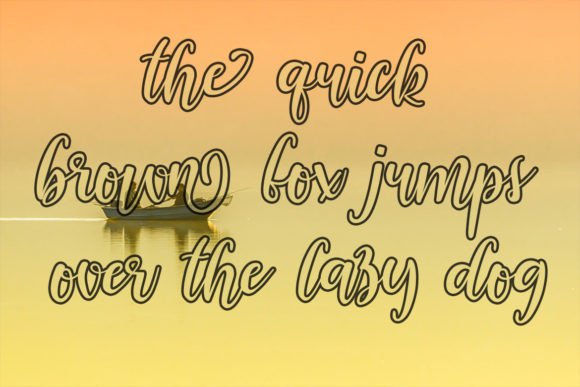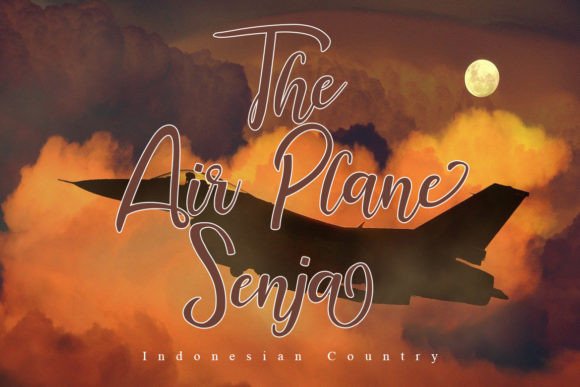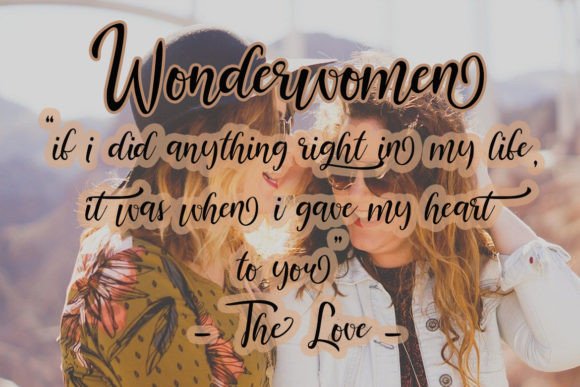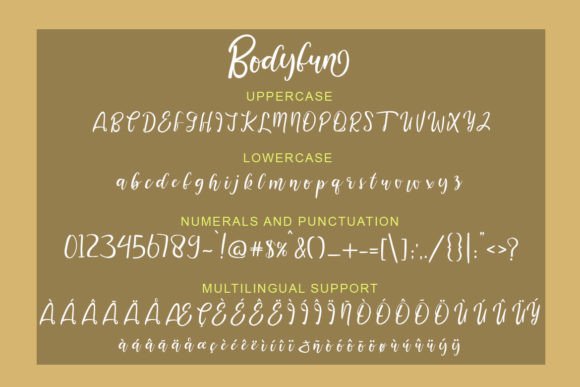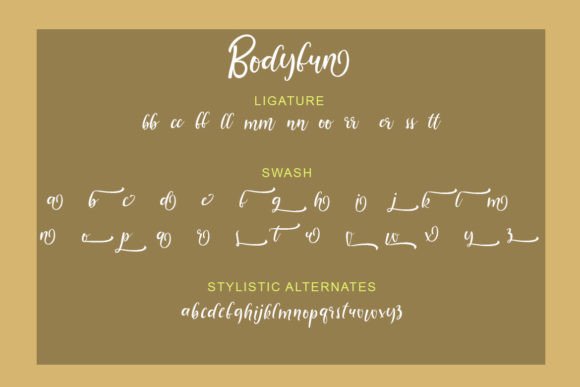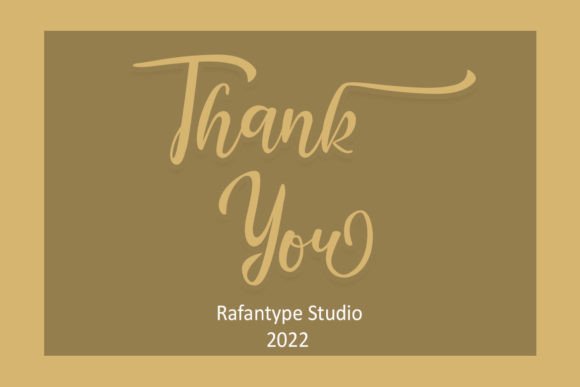
Introducing Bodyfun Font: The Playful Script Font to Elevate Your Creations
Are you tired of using the same old fonts in your designs? Do you want to add a touch of playfulness and charm to your creations? Look no further than Bodyfun Font, a lovely script font that is sure to make your designs stand out. In this article, we’ll take a closer look at Bodyfun Font, its features, and how you can use it to elevate your designs.
What is Bodyfun Font?
Bodyfun Font is a script font that features charming, playful characters that seem to dance along the baseline. Its unique and lively design makes it perfect for adding a touch of whimsy to your designs. Whether you’re working on a creative project, crafting a social media post, or designing a logo, Bodyfun Font is sure to make your text stand out.
Key Features of Bodyfun Font
- Playful and charming design: Bodyfun Font features playful and charming characters that add a touch of whimsy to your designs.
- Unique baseline flow: The font’s characters seem to dance along the baseline, creating a lively and dynamic effect.
- Versatile: Bodyfun Font can be used for a wide range of design projects, from creative crafts to digital designs.
- Elegant and sophisticated: Despite its playful design, Bodyfun Font still maintains an elegant and sophisticated feel.
How to Use Bodyfun Font in Your Designs
Bodyfun Font is an incredibly versatile font that can be used in a wide range of design projects. Here are a few ideas to get you started:
- Creative crafts: Use Bodyfun Font to add a touch of personality to your craft projects, such as handmade cards, scrapbooking, and DIY decorations.
- Digital designs: Add Bodyfun Font to your digital designs, such as social media graphics, blog posts, and website headers.
- Logo design: Use Bodyfun Font to create a unique and playful logo for your business or brand.
- Invitations and events: Use Bodyfun Font to create eye-catching invitations and event materials, such as wedding invites, party flyers, and event posters.
Benefits of Using Bodyfun Font
So why should you choose Bodyfun Font for your designs? Here are just a few benefits:
- Adds personality to your designs: Bodyfun Font adds a touch of playfulness and whimsy to your designs, making them more engaging and memorable.
- Elevates your brand: Using a unique and high-quality font like Bodyfun Font can help elevate your brand and make it stand out from the competition.
- Increases creativity: Bodyfun Font’s playful design can inspire creativity and help you think outside the box.
Tips for Using Bodyfun Font Effectively
Here are a few tips for using Bodyfun Font effectively in your designs:
- Use it sparingly: While Bodyfun Font is playful and charming, it can be overwhelming if used too much. Use it sparingly to add emphasis and create visual interest.
- Pair it with other fonts: Bodyfun Font pairs well with other fonts, such as sans-serif fonts or serif fonts. Experiment with different font combinations to find the perfect look for your design.
- Adjust the size and color: Experiment with different sizes and colors to find the perfect look for your design.
Bodyfun Font is a lovely script font that is sure to elevate your designs and add a touch of playfulness and charm. Its unique and lively design makes it perfect for a wide range of design projects, from creative crafts to digital designs. With its versatility, elegance, and sophistication, Bodyfun Font is an incredible asset to your font library. So why not give it a try and see how it can take your designs to the next level?